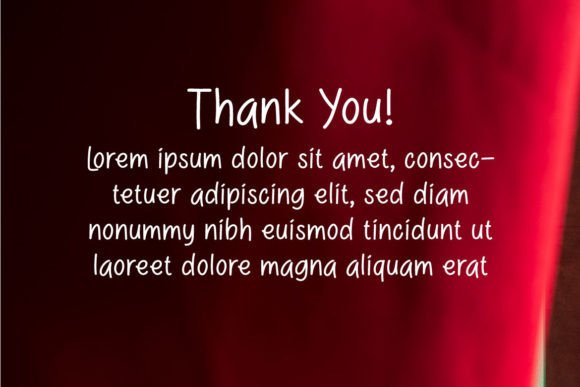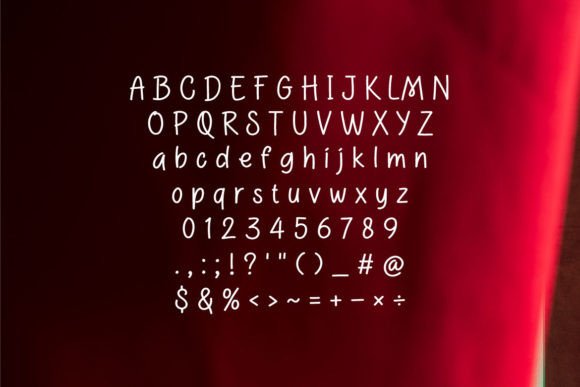
Introduction to Ruby Clown Font Font
Fonts play a crucial role in design, and the Ruby Clown Font font is a typeface that brings both character and versatility to any project. Whether you’re working on a branding project, a website, or a print design, the Ruby Clown Font font offers a unique style that can elevate your work.
| π Font Name | Ruby Clown Font |
| π€ Author | Mightyfire |
Ruby Clown is a lovely handwritten font with modern and clean looks.
Ruby Clown can be used in any work such as comic books, schools, kindergarten, storybooks, kidsβ stuff, childrenβs books, posters, advertisements, social media content, logos, and many more .
Key Features of Ruby Clown Font Font
Why Choose Ruby Clown Font Font?
The Ruby Clown Font font is more than just a typeface β it’s a design tool that helps you communicate your message with style and clarity. Its unique character set and versatile design make it suitable for a wide range of applications, from elegant invitations to bold headlines.
With its carefully crafted letterforms and balanced proportions, the Ruby Clown Font font ensures readability and visual appeal across all mediums.
What makes Ruby Clown Font font special?
The Ruby Clown Font font stands out with its unique design, exceptional readability, and versatility across various design applications.